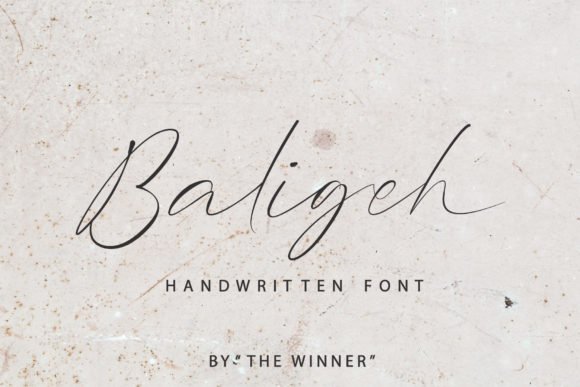
The Perfect Brushstroke: Unleashing Creativity with Baligeh Font
Have you ever been scrolling through your social media feed, and suddenly, a beautifully designed post catches your eye? The combination of vibrant colors and elegant typography is what makes it stand out. As a designer, you know the importance of using the right font to convey your message and evoke emotions in your audience.
Introducing the Baligeh Font, a thin and casual handwritten font that’s perfect for adding a personal touch to your designs. Whether you’re creating social media posts, advertisements, product packaging, or logos, Baligeh Font is the ideal choice. Its versatility and stylish appearance make it a valuable asset for designers looking to elevate their work.
With Baligeh Font, you can add a touch of elegance and sophistication to your designs, making them more engaging and memorable. Its wide range of applications and endless creative possibilities make it a must-have for any designer looking to take their work to the next level.
Baligeh Font Key Features
- Font Style: Baligeh is a modern, elegant font with a mix of traditional and digital elements, suitable for various design applications.
- Character Set: The font includes a wide range of characters, including Latin, Arabic, and Persian scripts, making it a versatile choice for multilingual designs.
- Unique Characteristics: Baligeh features a unique blend of geometric and organic elements, resulting in a distinctive and visually appealing aesthetic.
Designer Review: Baligeh Font
As a designer, I was excited to dive into the Baligeh Font and see what it had to offer. Overall, I think it’s a great addition to any designer’s toolkit, but as with any font, it has its strengths and weaknesses.
- Unique design: Baligeh Font has a distinct and eye-catching design that sets it apart from more traditional fonts.
- Legibility: Despite its unique design, Baligeh Font is still very legible, making it easy to read even in smaller sizes.
- Multi-language support: Baligeh Font supports a wide range of languages, making it a great choice for designers working on international projects.
- Font weight limitations: Baligeh Font has a limited number of font weights, which may not be ideal for designers who need to create complex typography.
- Lack of italic styles: While Baligeh Font has a bold style, it does not have an italic style, which may be a drawback for designers who need to create emphasis.
Overall, I think Baligeh Font is a solid choice for designers who want a unique and legible font for their projects. While it may have some limitations, its strengths make it a valuable addition to any designer’s toolkit.
Tips for Getting the Most Out of Baligeh Font
Here are some tips to help you get the most out of Baligeh Font:
- Use Baligeh Font for titles, headings, and body text to create a cohesive design.
- Combine Baligeh Font with other fonts to create a unique and stylish design.
Baligeh Font is commonly used for:
- Editorial and publishing design.
Alternatives to Baligeh Font for Designers
Sansita One
Sansita One is a beautiful, elegant script font that can be used for headings and titles. It has a similar feel to Baligeh Font, but with a more refined and sophisticated look. Sansita One is ideal for use in high-end branding, luxury goods, and fashion design.
Comparison to Baligeh Font: Sansita One has a more polished and refined look, with a focus on elegance and sophistication. It is a good choice for designers who want a more premium feel in their designs.
Great Vibes is a modern script font that is perfect for use in headings, titles, and body text. It has a fun and energetic feel, making it ideal for use in creative industries such as advertising, marketing, and entertainment.